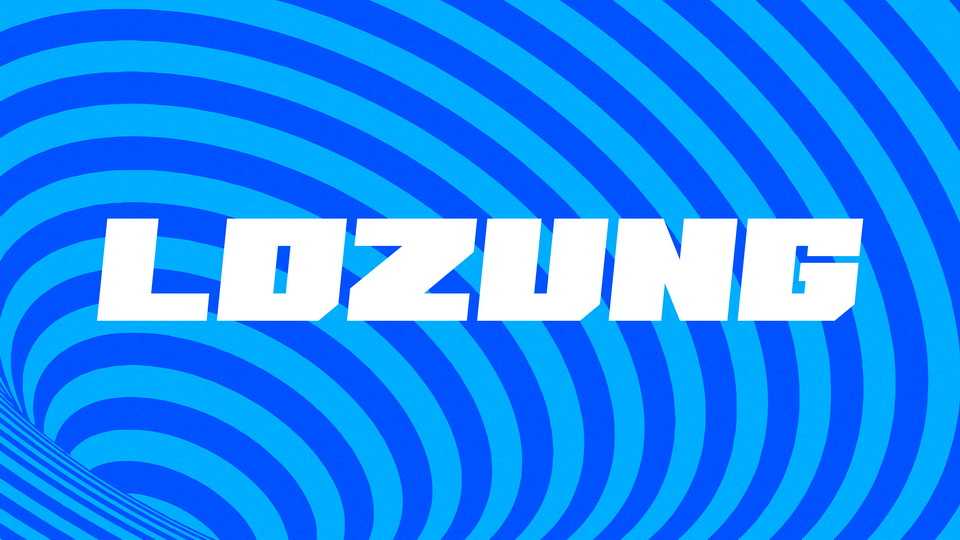
Download Lozung Caps font, a display typeface redrawn into vector from a fragment of Soviet book of the 70s. Lozung Caps is heavy, wide and dynamic in the same time.
Designer: Artem Waves